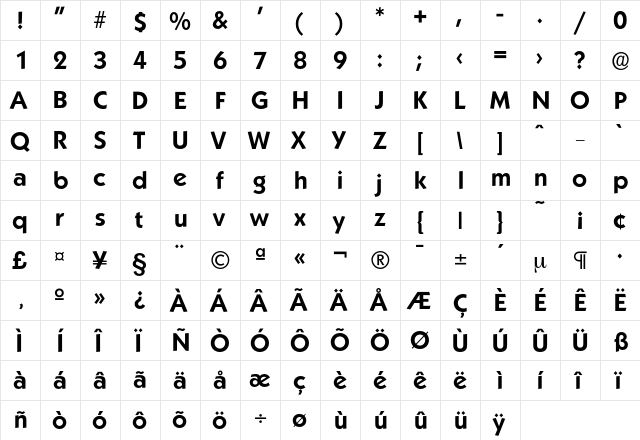
Koblenz-DemiBold Regular
Design Context for Koblenz-DemiBold Typeface
Koblenz-DemiBold offers clean, dependable letterforms without strong stylistic allegiance, making it a practical choice for designers who need flexibility. The heavy weight commands attention and anchors typographic hierarchies.